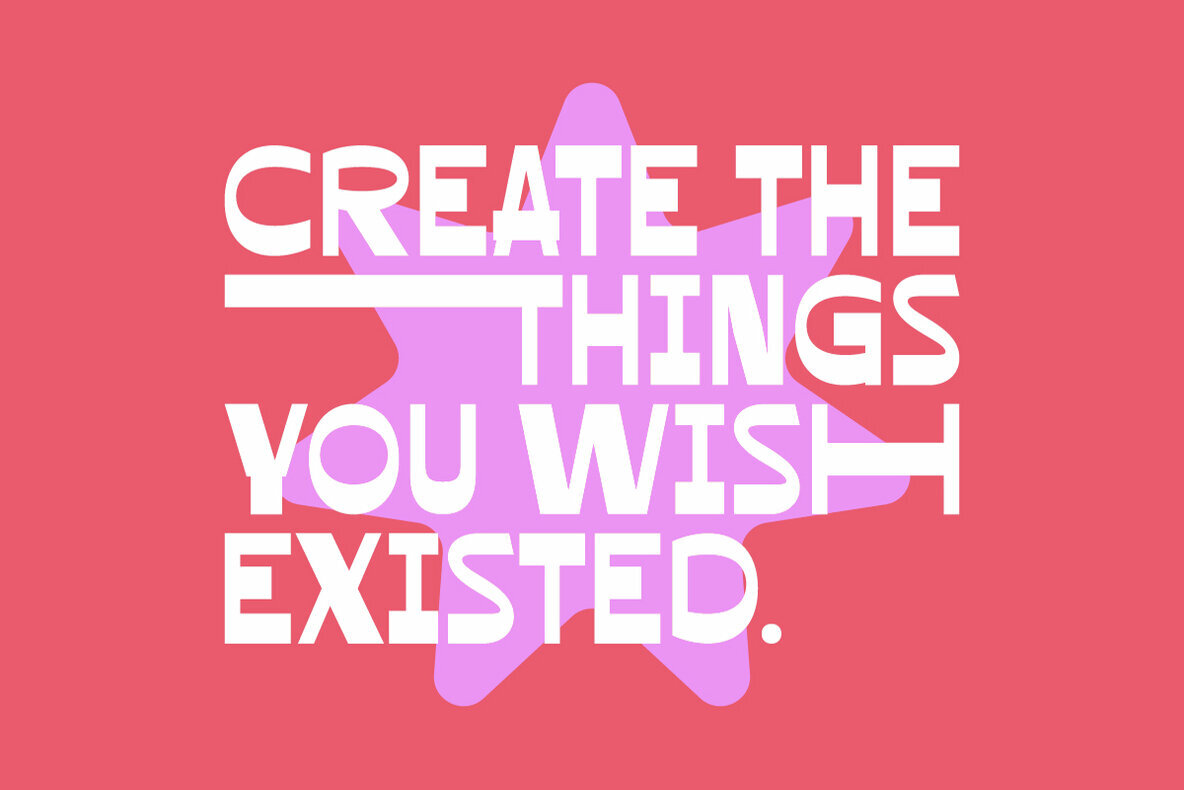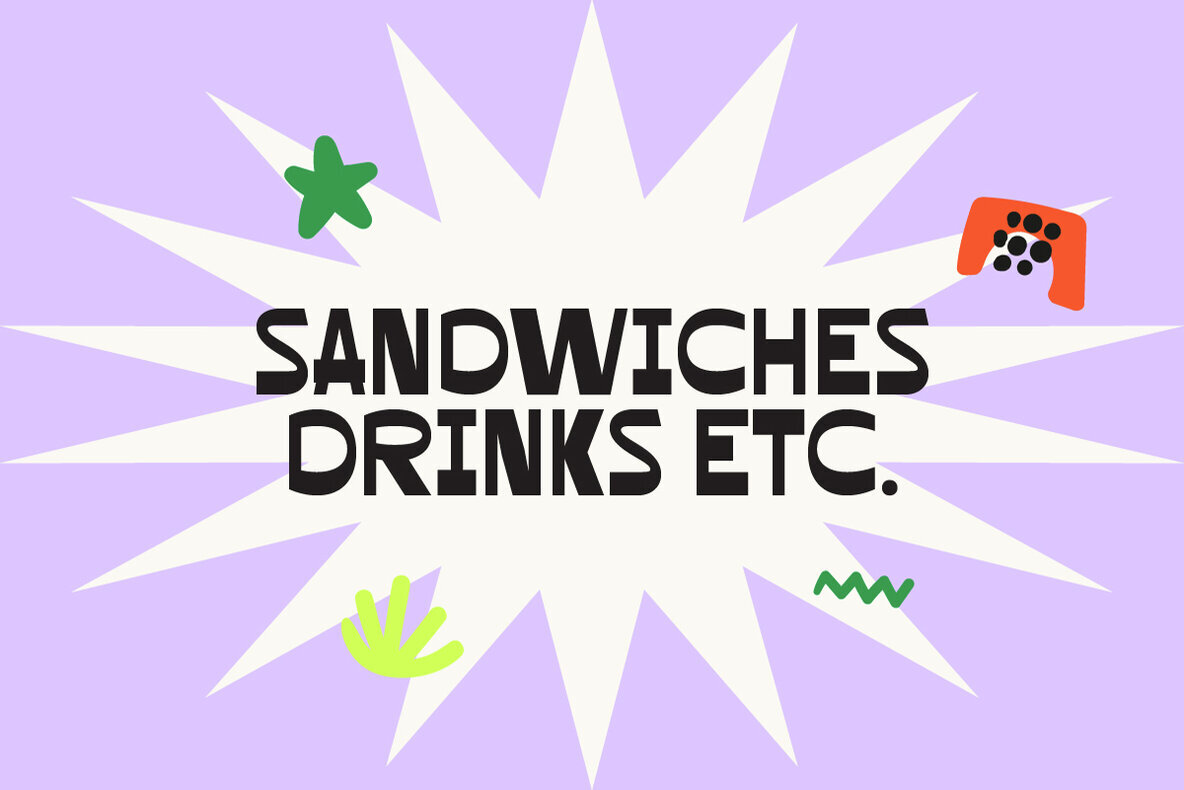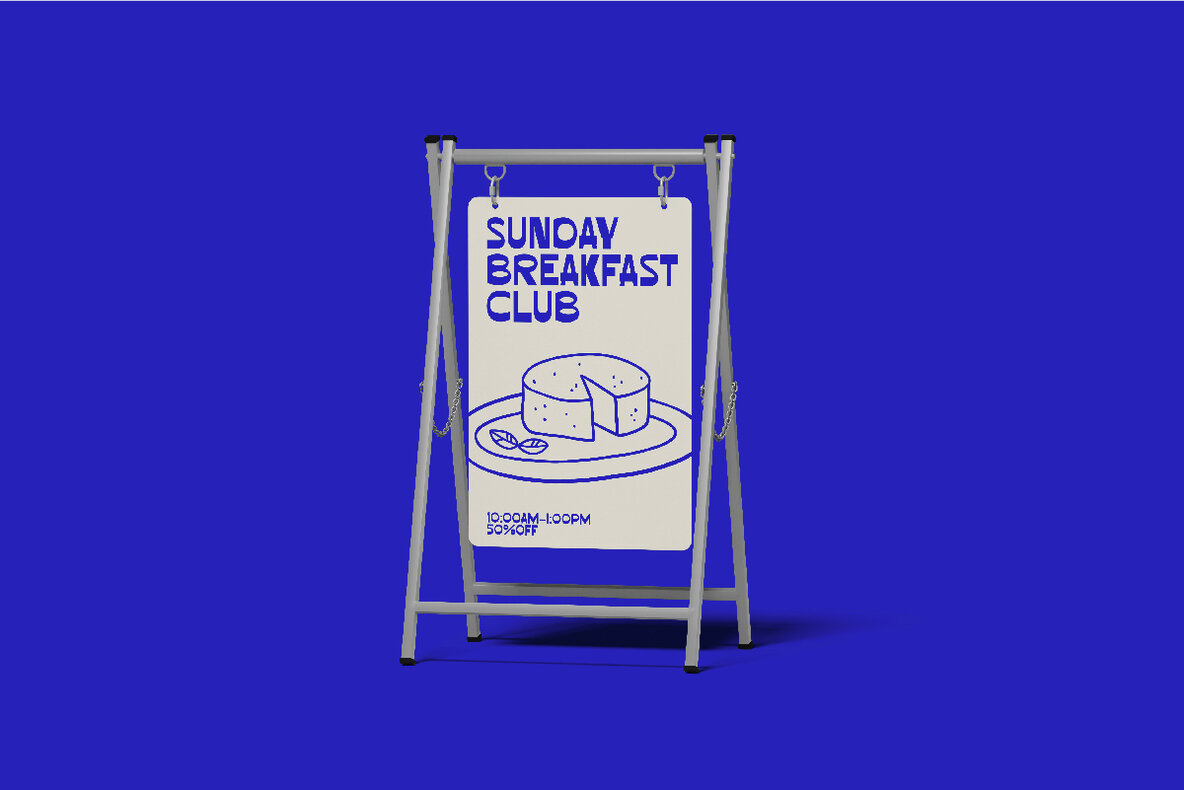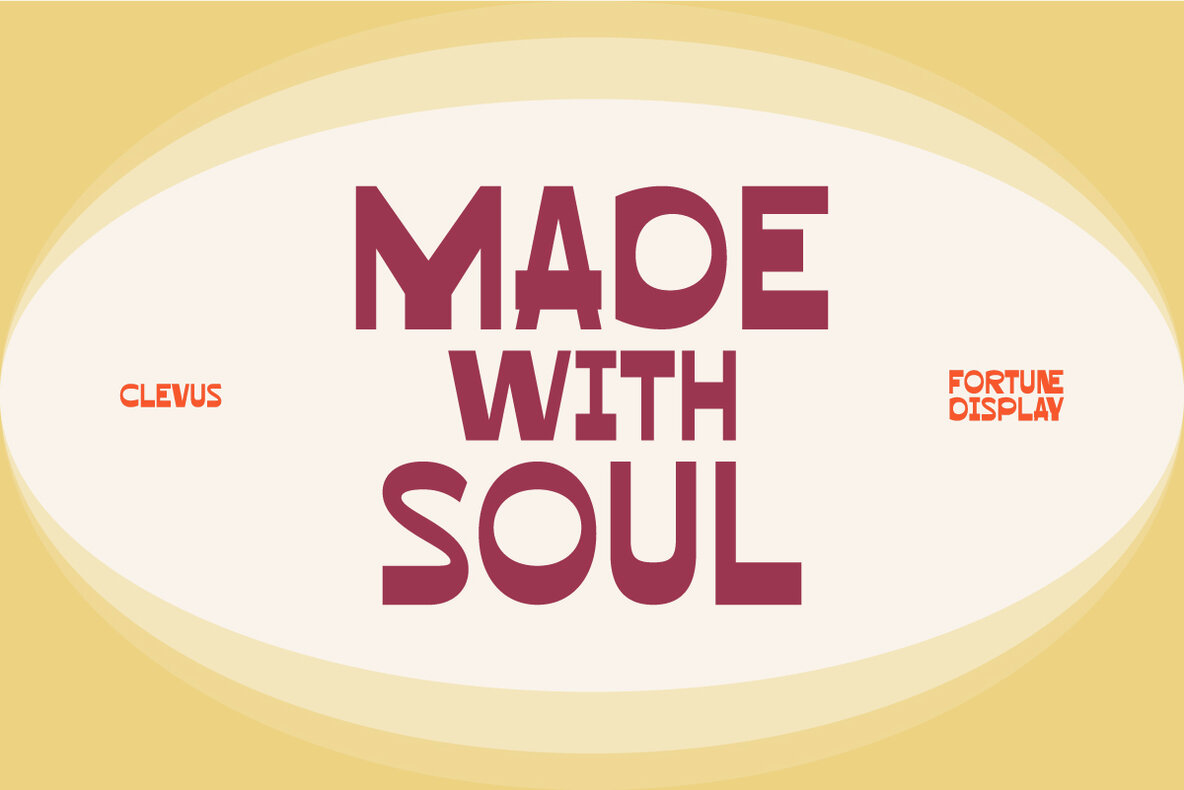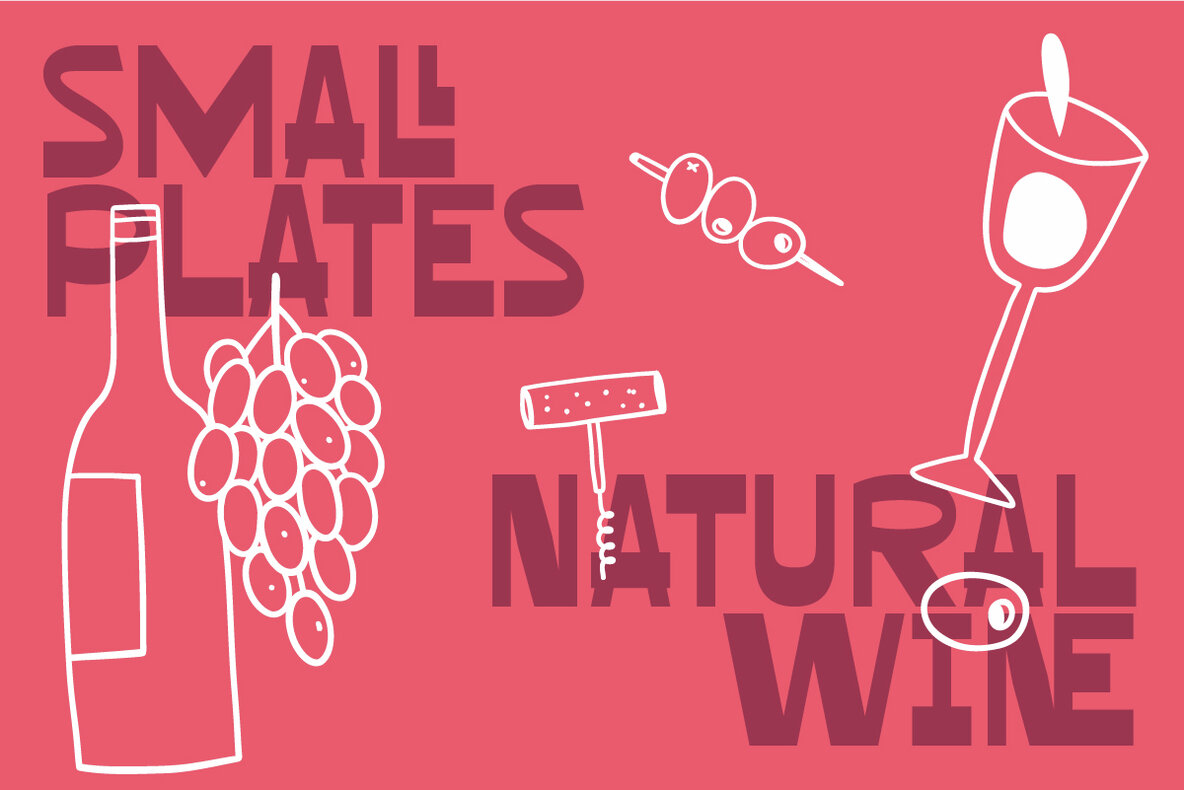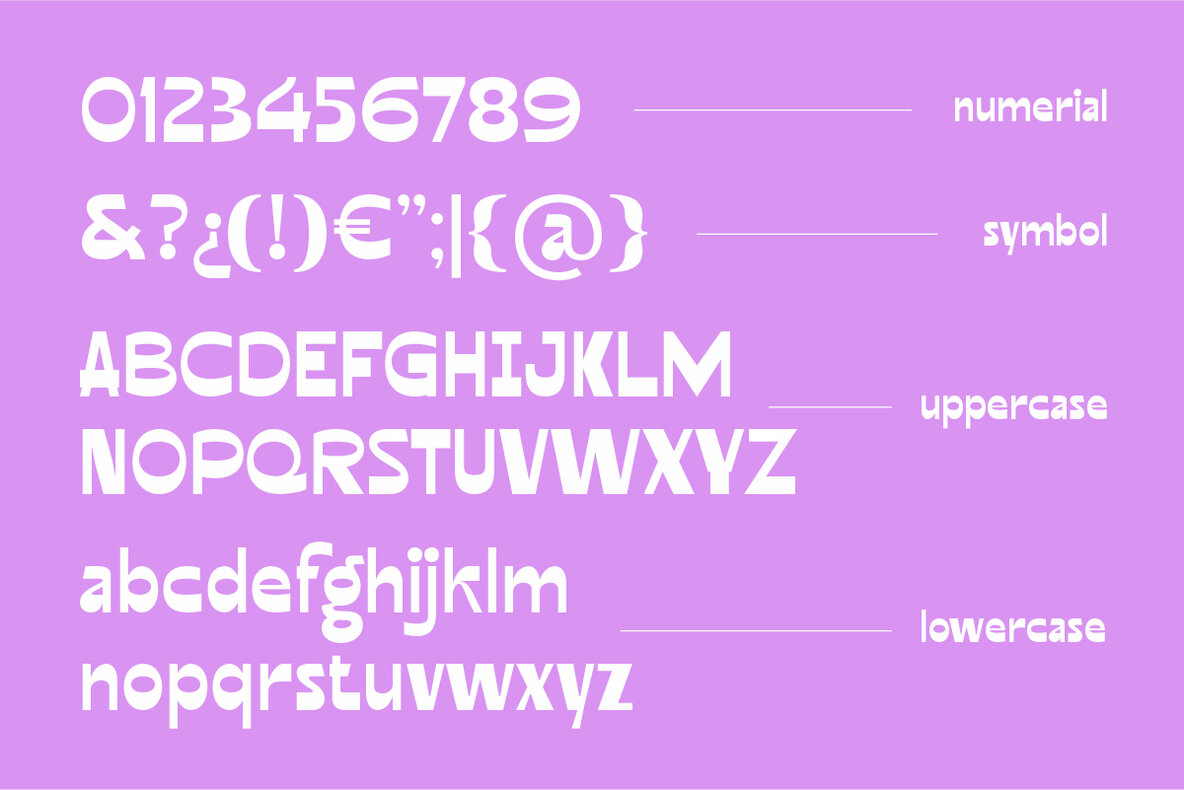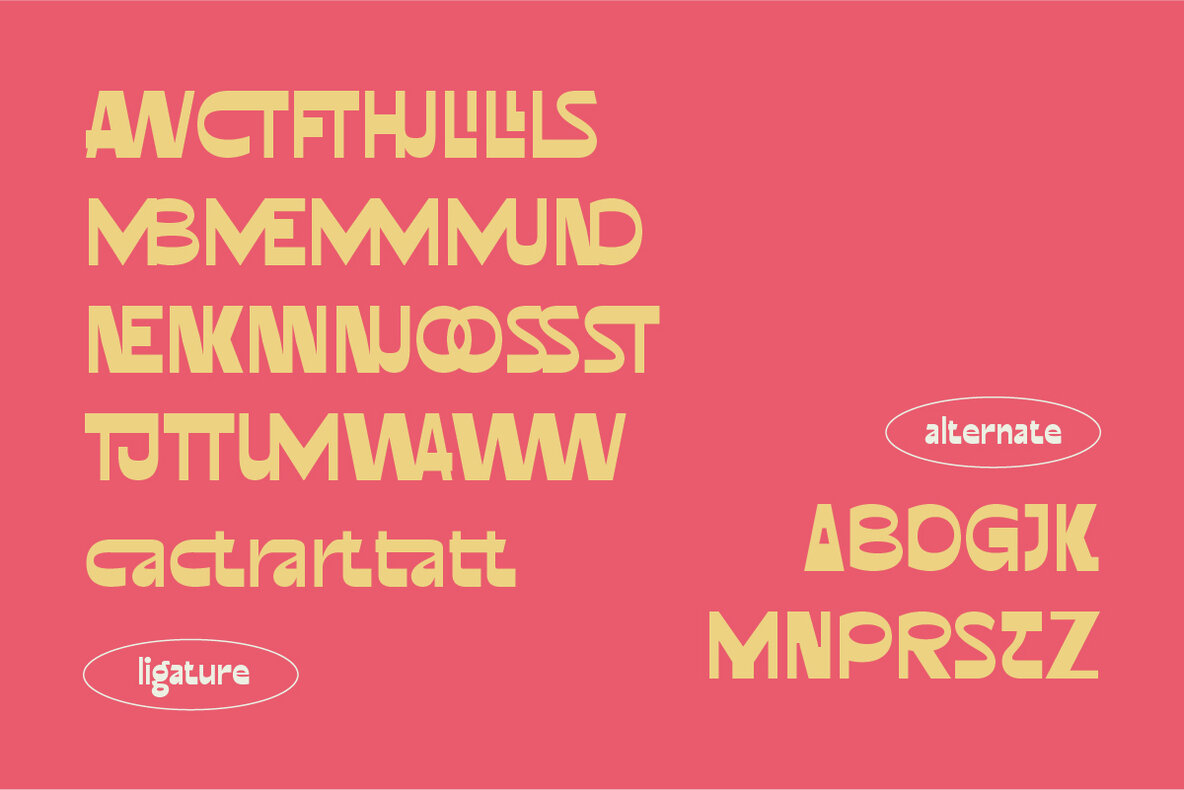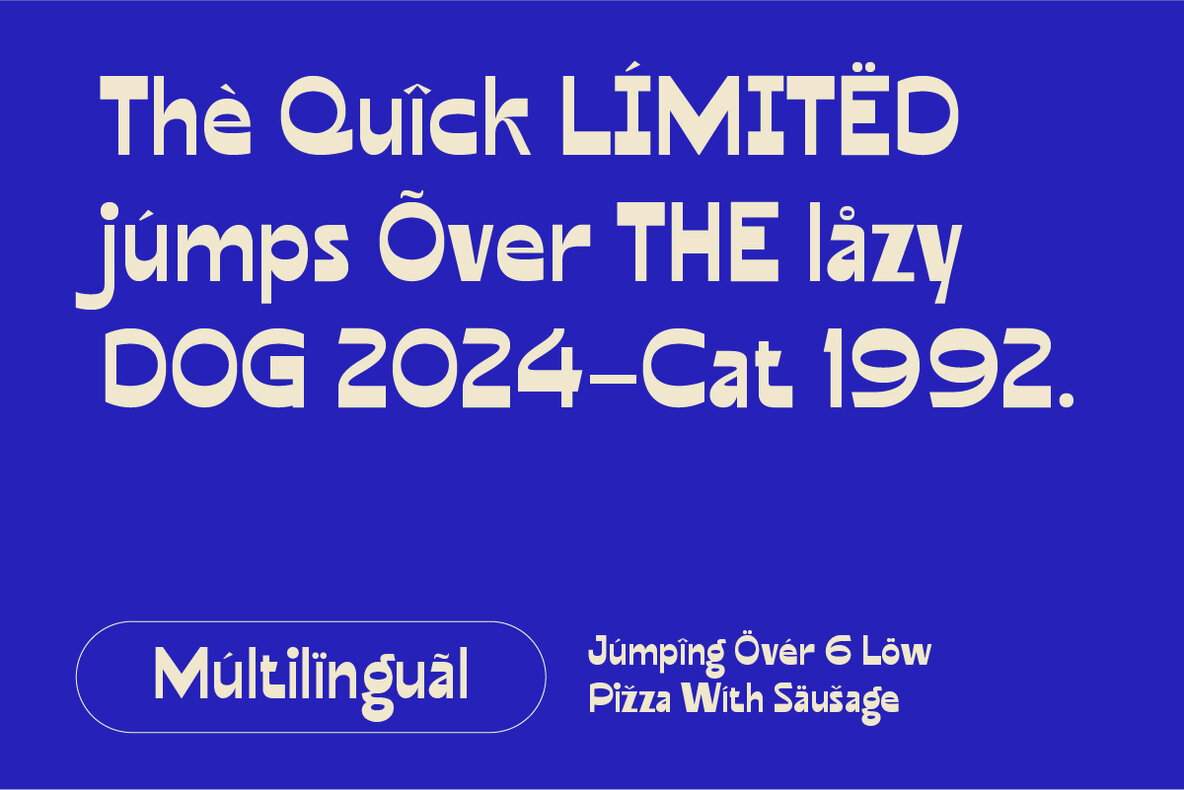
Fortune Display Font
Fortune Display Regular
Fortune Display is a modern sans-serif typeface designed to make a visual impact with its sleek, elongated forms and bold asymmetrical characters. Ideal for projects requiring a strong presence, this font provides distinct style and versatility. Its unique design ensures that it stands out in a variety of applications, from branding to digital design.
With a comprehensive set of special characters and multilingual support, Fortune Display offers flexibility for diverse projects. The typeface is perfect for designers looking for a font that combines style with functionality, enhancing both the aesthetic and communicative aspects of their work.